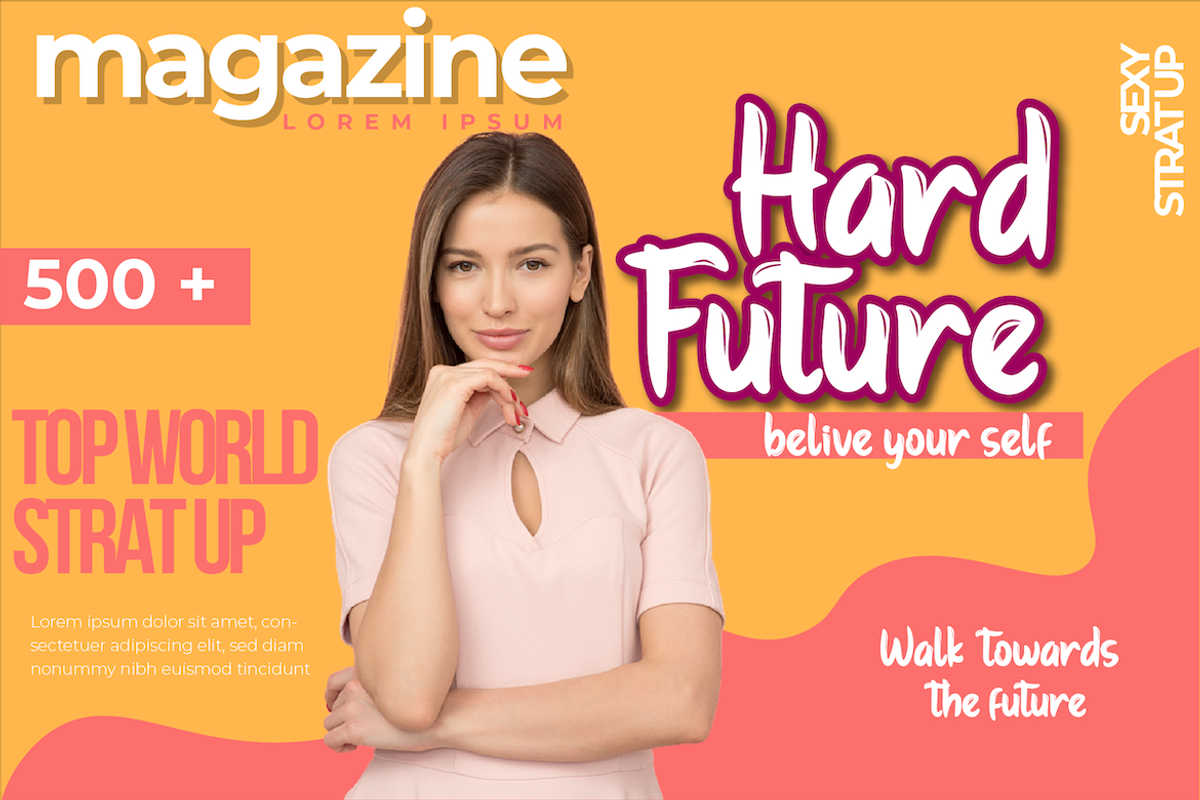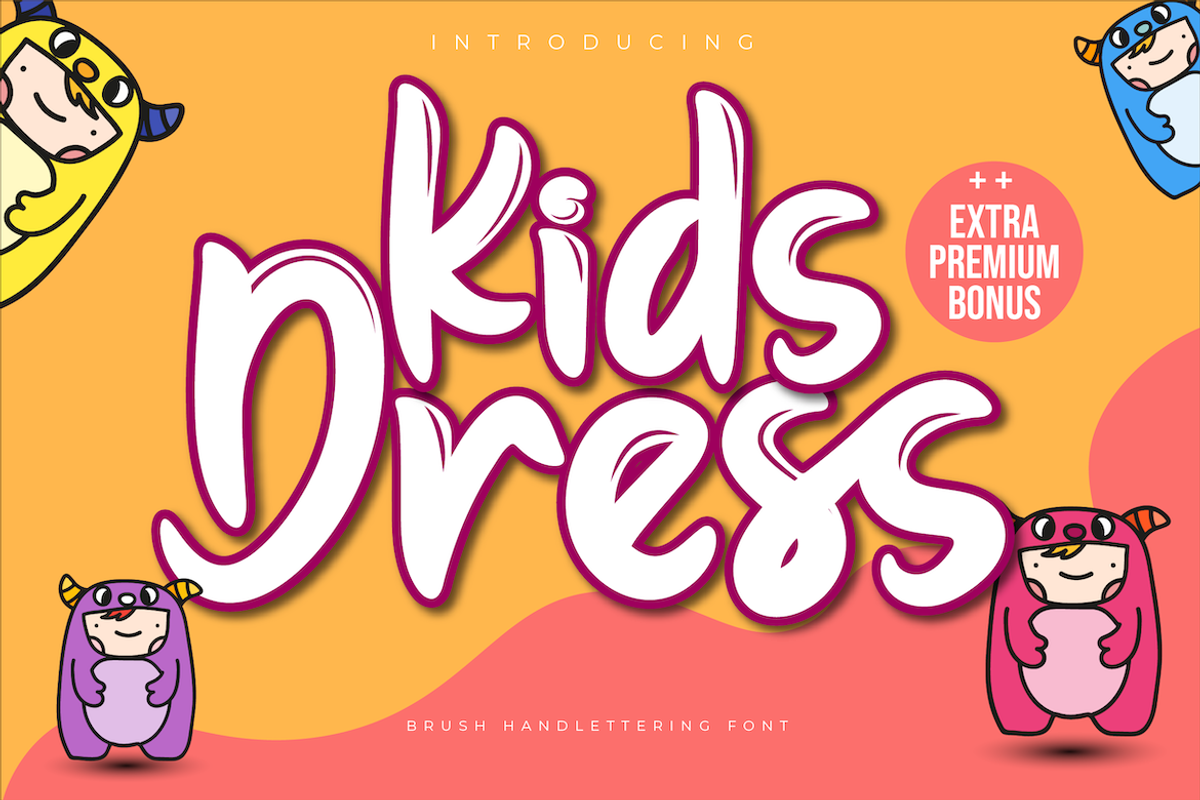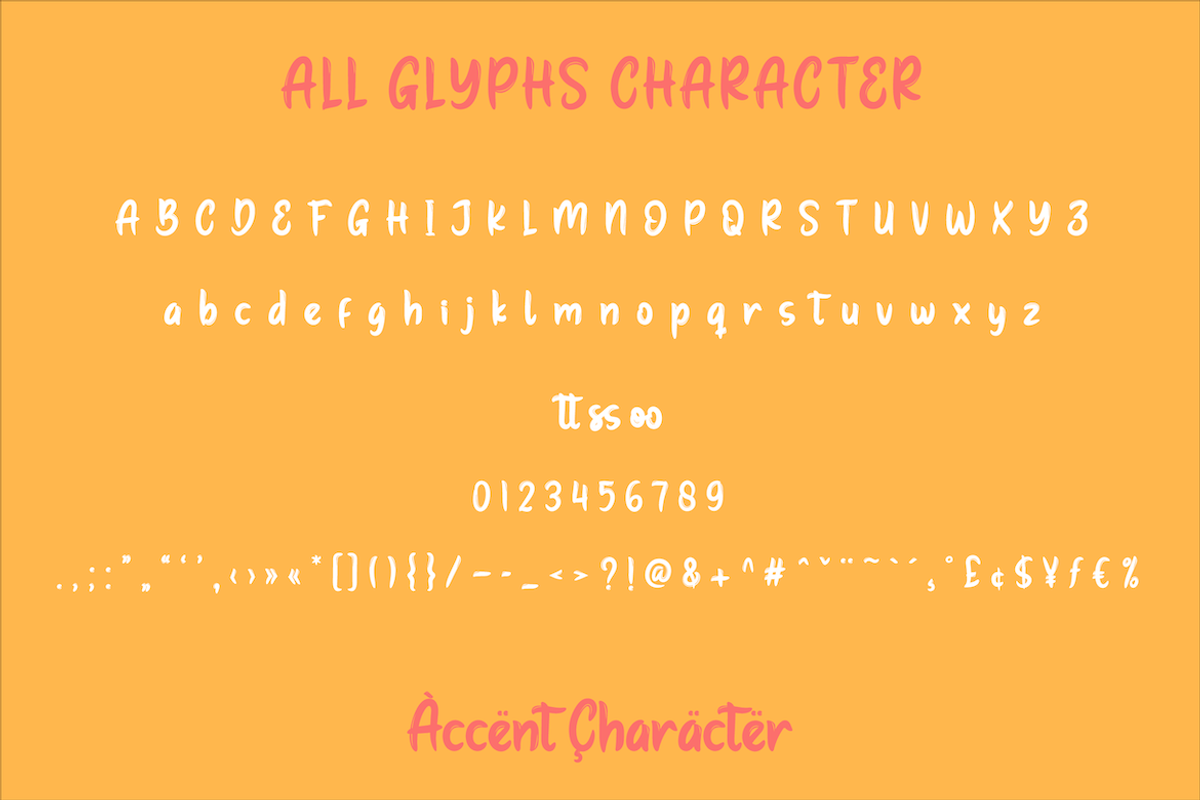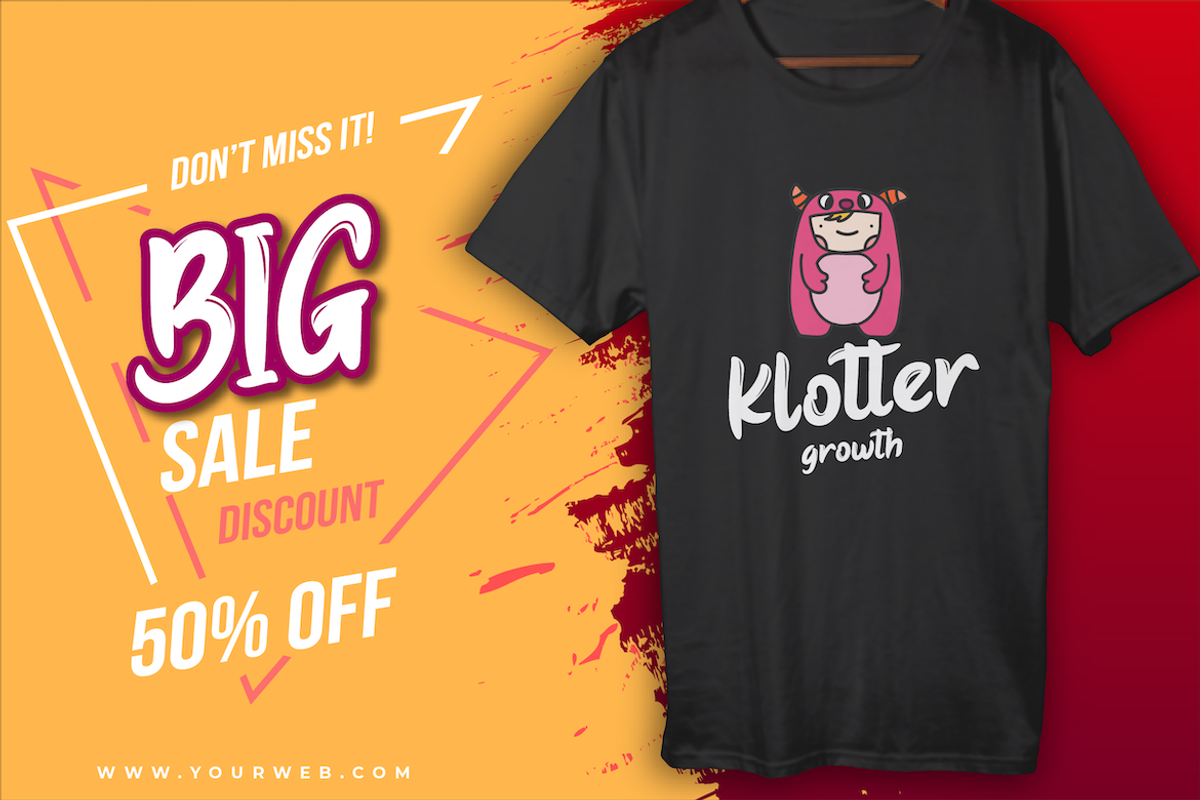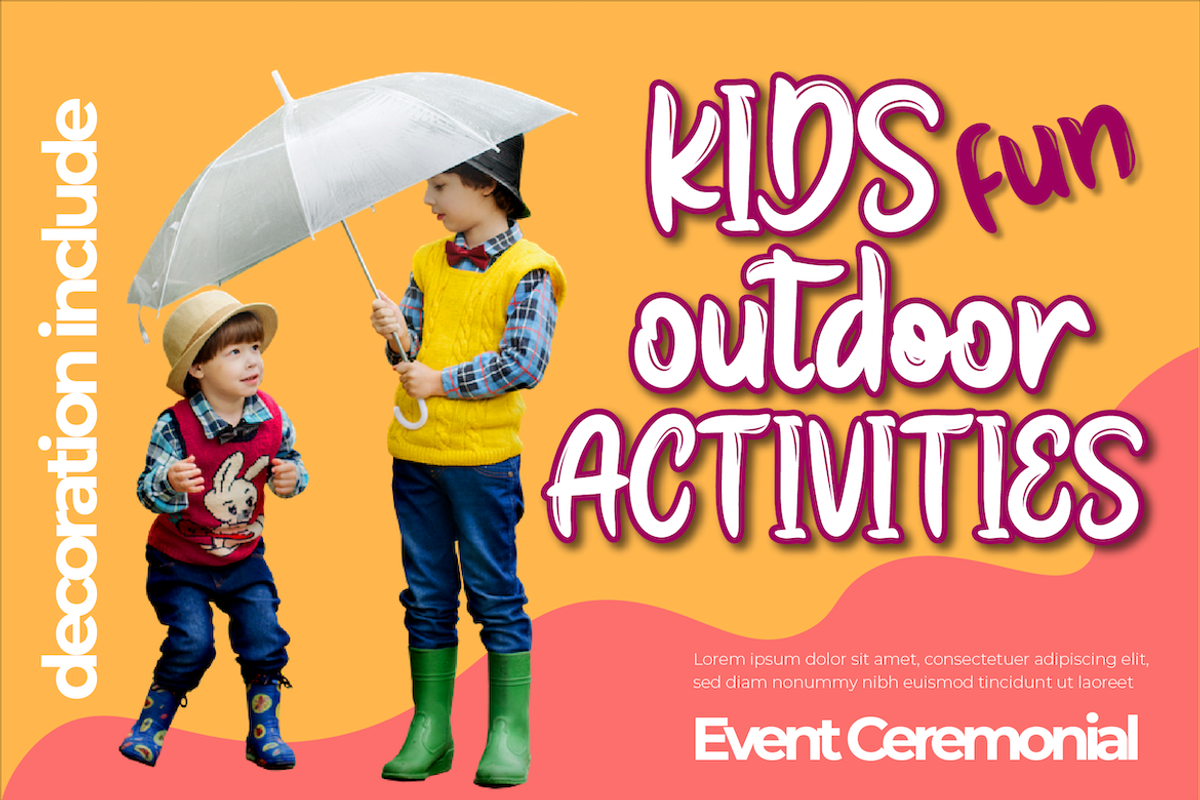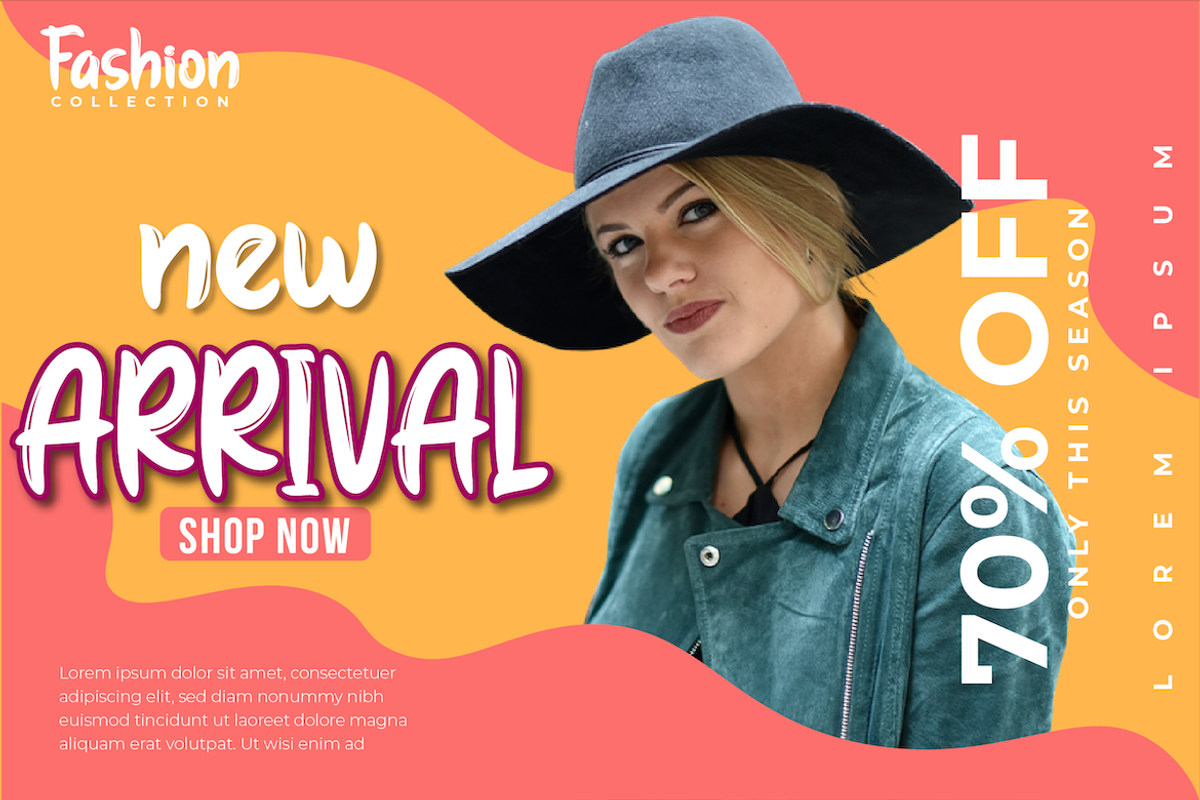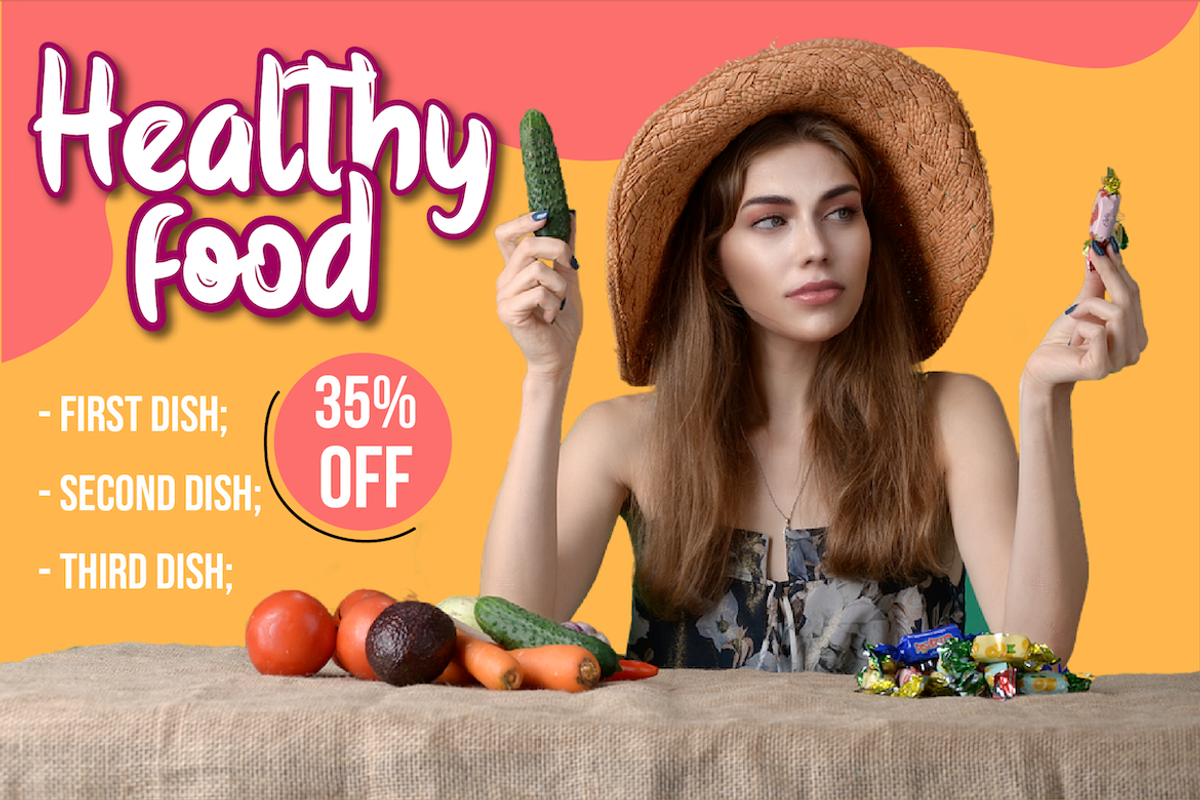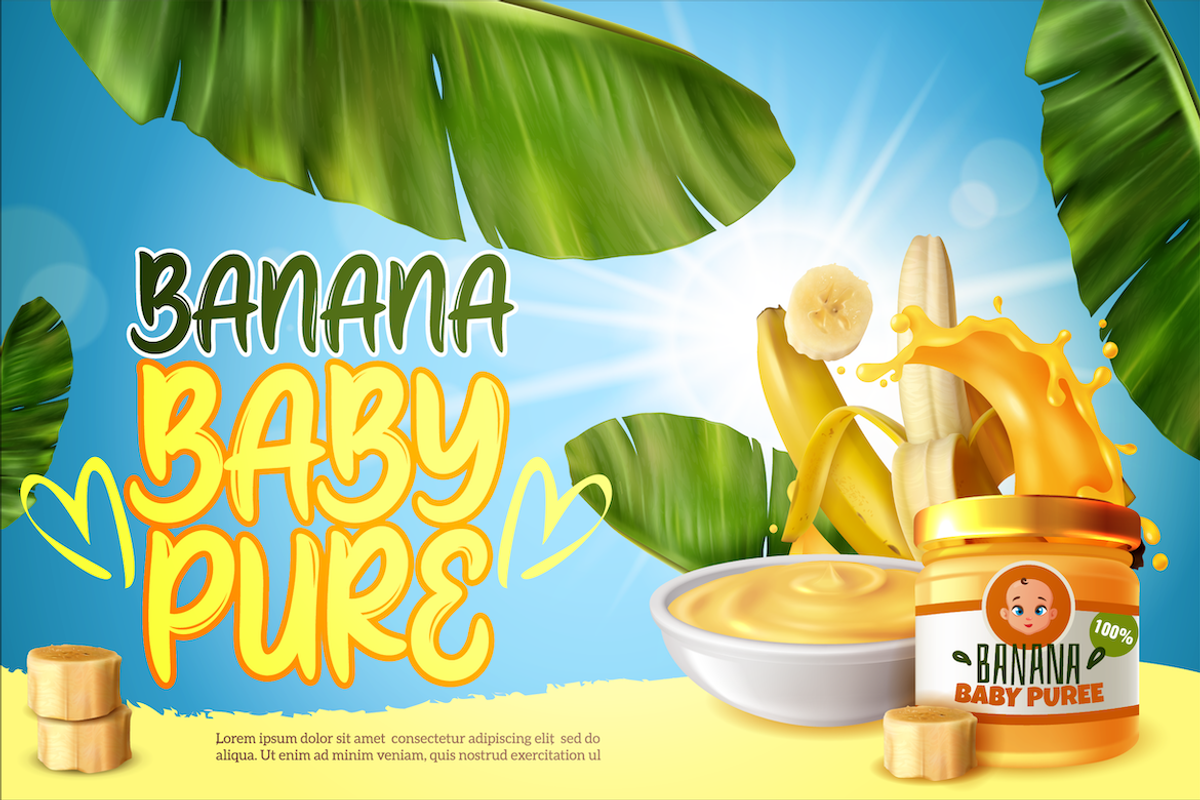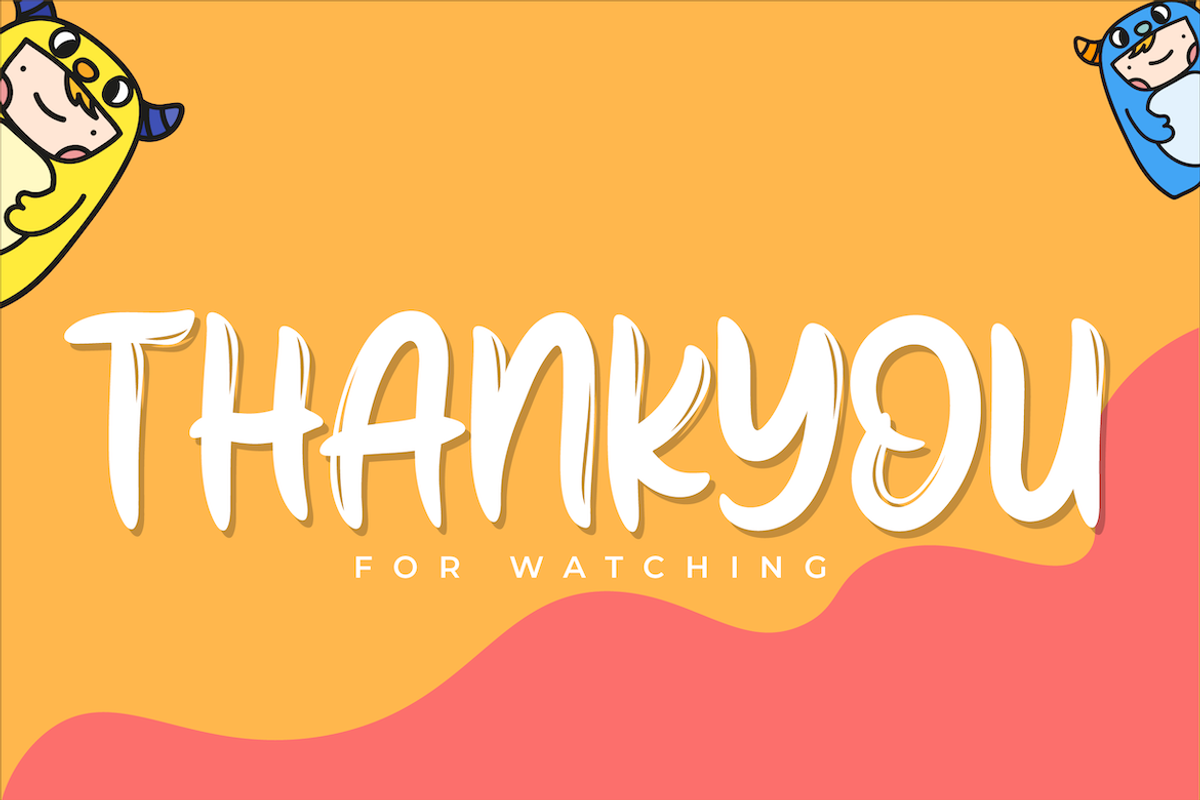
Kids Dress
Kids Dress is a smooth marker font with natural brush style which perfect for your latest project.
Kids Dress is a cute and fun display font. It will add an incredibly joyful touch to your designs. Add this beautiful display font to each of your creative ideas and notice how it makes them stand out!